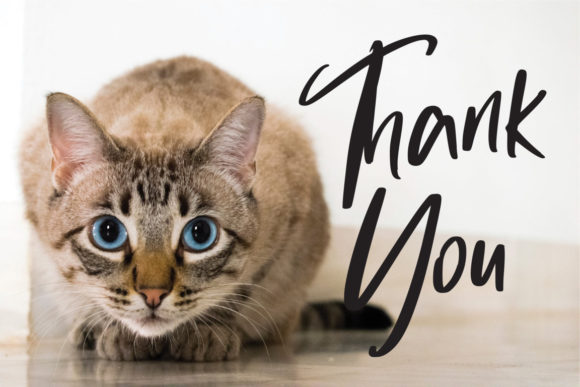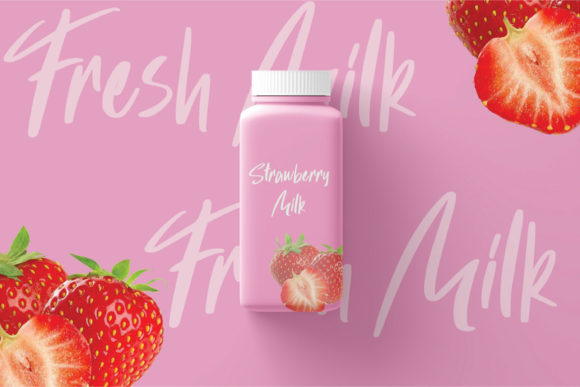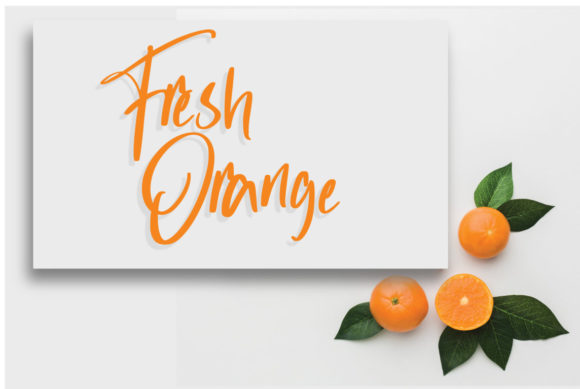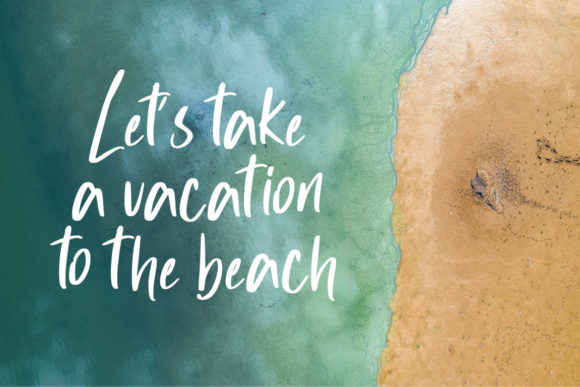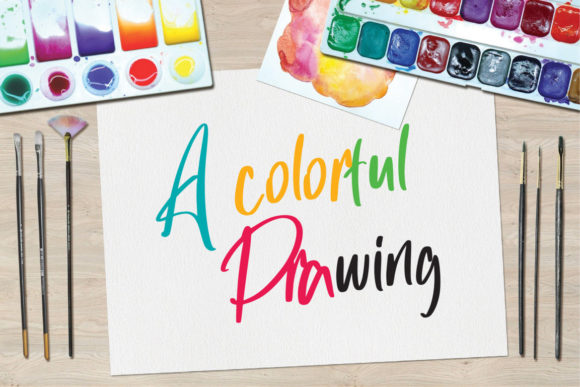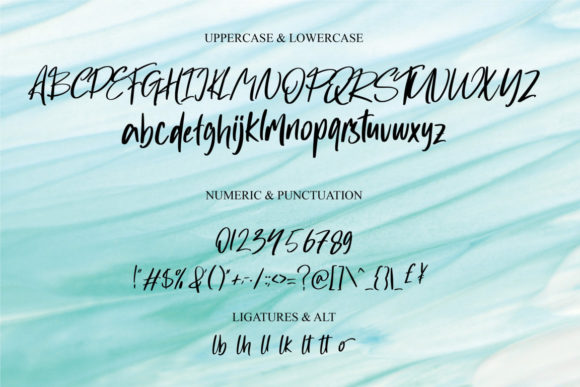
Introduction to Haltmoon Font
Have you ever found yourself pouring over a blank canvas, struggling to bring your creative vision to life? The blank page can be a daunting sight, but what if you had the perfect tool to break the silence? For designers, the right font can be the spark that ignites a project and sets it ablaze with character. And when it comes to adding a touch of nostalgia and confidence to your designs, there’s one font that stands out from the rest: the Haltmoon Font.
This gorgeous and bold handwritten font is more than just a design resource – it’s a game-changer. With its transparent background and high-quality design, the Haltmoon Font is perfect for adding a personal touch to your creative projects, whether you’re working on a free download or a paid commission. Its dynamic feel is sure to elevate your work and leave a lasting impression on your audience.
Key Features of Haltmoon Font
- Unique and Creative Design: Haltmoon Font is a one-of-a-kind design resource perfect for creative projects that require a touch of elegance and sophistication.
- Perfect for Digital and Print Projects: Haltmoon Font is suitable for both digital and print projects, including website headers, business cards, and brochures.
- Regular and Bold Font Weights: The font includes regular and bold font weights, providing designers with the flexibility to choose the perfect weight for their creative project.
Honest Review: Haltmoon Font
I recently stumbled upon the Haltmoon Font, and I must say it’s a great addition to any designer’s toolkit. This beautiful font is perfect for creative projects that require a unique touch. The free download option makes it an excellent design resource for those on a budget.
What works well is the font’s high quality and versatility. It’s available in various formats, including TTF and OTF, making it compatible with most design software. The transparent background option is also a plus, allowing designers to easily overlay the font on images or other design elements.
- ✨ Unique design that sets your creative project apart
- ✨ High-quality font that’s perfect for professional designs
Overall, the Haltmoon Font is a great choice for designers looking for a unique and high-quality font for their creative projects. While it may have some limitations, its free download option and versatility make it an excellent design resource for anyone looking to add a touch of elegance to their designs.
Tips for Getting the Most Out of Haltmoon Font
Use Haltmoon Font in conjunction with a transparent background to create visually appealing designs. Experiment with different font sizes and styles to add depth and interest to your creative project. This font is versatile and can be used in a variety of design contexts.
Haltmoon Font is commonly used in graphic design, digital art, and creative writing projects. Its unique style and high quality make it a valuable resource for designers and artists. Download Haltmoon Font for free and start creating your next creative project today!